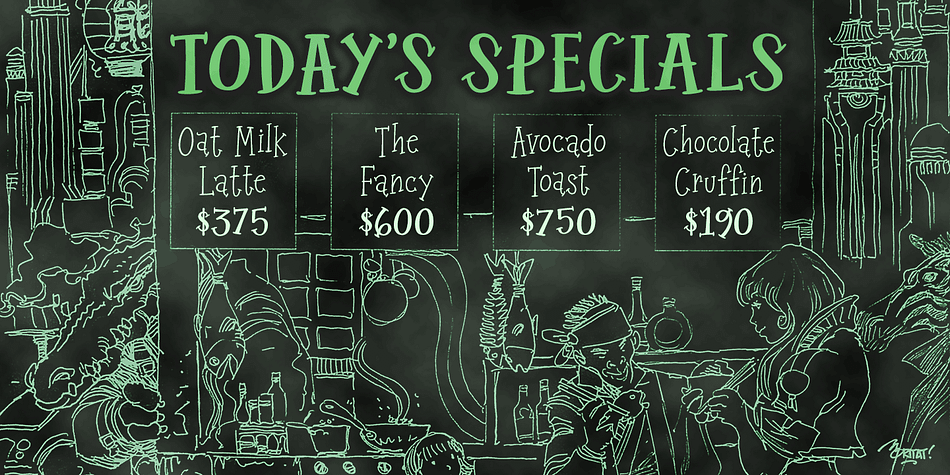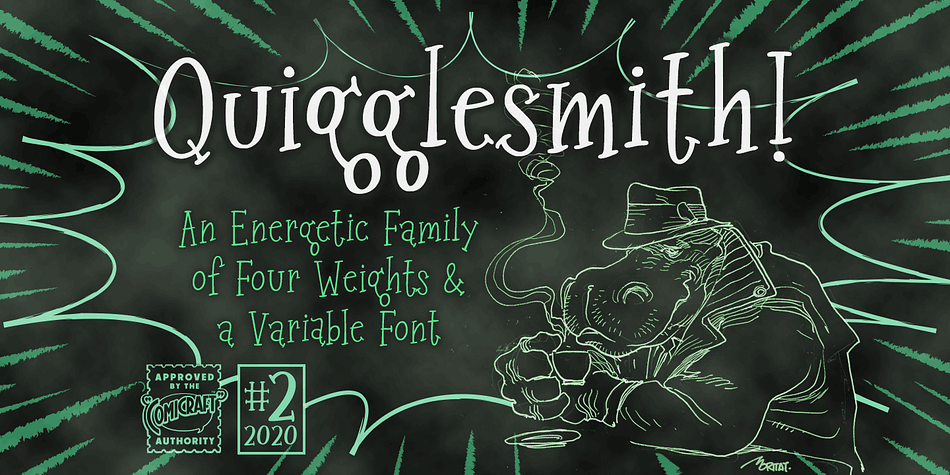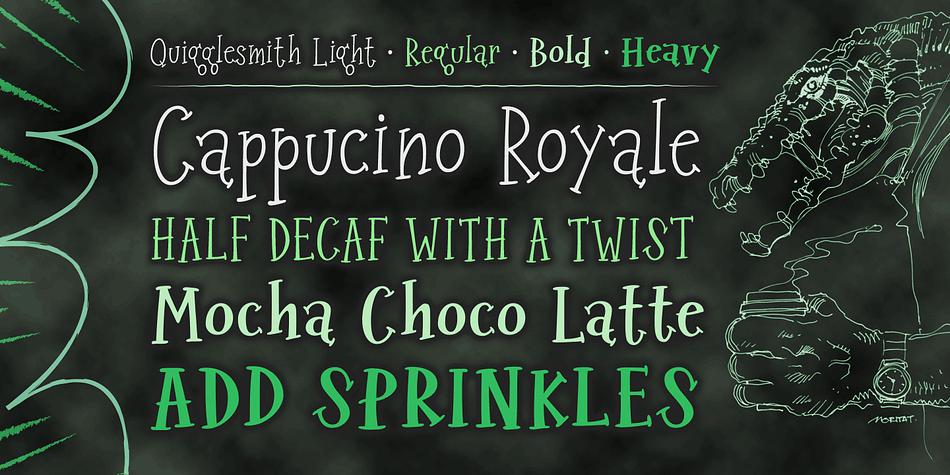
Designed by John Roshell and Sarah Hedrick, Quigglesmith is a hand drawn font family. This typeface has five styles and was published by Comicraft.
It’s just downed a Cortado in one gulp, it’s shaved the sides of its head and its grown a magnificent beard groomed with the very best beard oils. Turn around and you’ll find that it has illustrated today’s specials in chalk on the wall sized blackboard behind the espresso machines it’s Quigglesmith!
Penned by Comicraft’s very own Chattanooga Barista, Sarah Hedrick, with a foam art finale by Swell John Roshell, it’s sure to dye its hair purple by the weekend. Quigglesmith is as variable in its weights as your soy/almond/oat/hazelnut milk choices at the coffee bar, and is sure to bring customers back for more. Have a Biscotti on us.
Quigglesmith contains an alternate version of each upper and lowercase letter which automatically cycle for a natural, hand-drawn appearance. Each weight contains 538 glyphs and supports 220 languages.